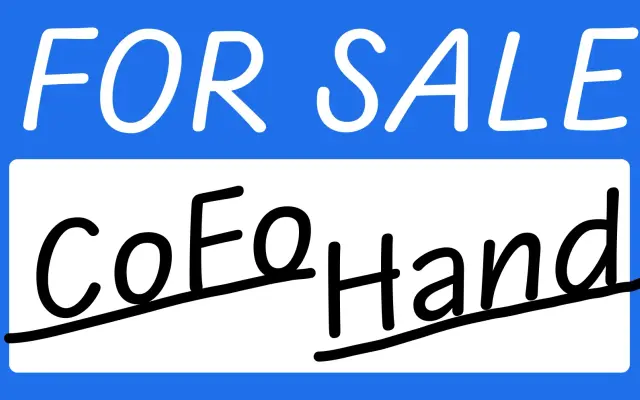
CoFo Hand
Contrast Foundry · Liza Rasskazova · 2023
A non-connecting casual handwriting script by Liza Rasskazova, covering Latin and Cyrillic, designed for legibility at small sizes without the formality of calligraphic scripts.
Designed by Liza Rasskazova with team support from Maria Doreuli, Elena Novoselova and Tasya Petelina, CoFo Hand sits between the spontaneity of personal handwriting and the usability demands of set text. Its disconnected letterforms avoid the awkward joins that often plague script typefaces, keeping it readable across a wide range of sizes and contexts. The single Regular style covers both Latin and Cyrillic, making it a practical choice for multilingual projects that need an informal, human quality.
A non-connecting script designed to evoke casual, everyday handwriting rather than formal calligraphy or decorative lettering, placing it firmly in the casual handwriting subcategory of script typefaces.